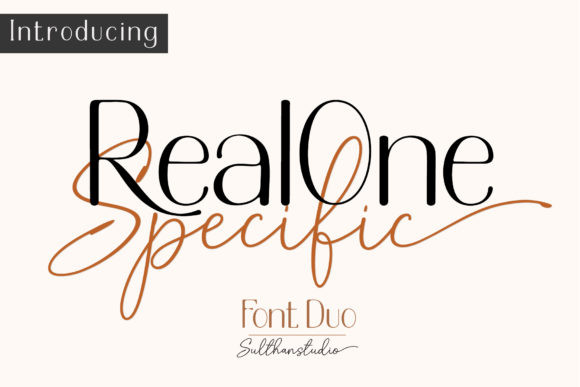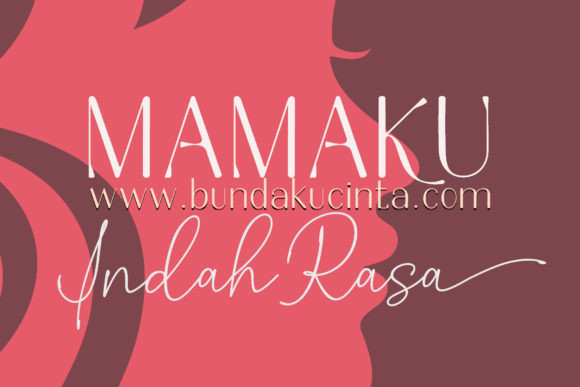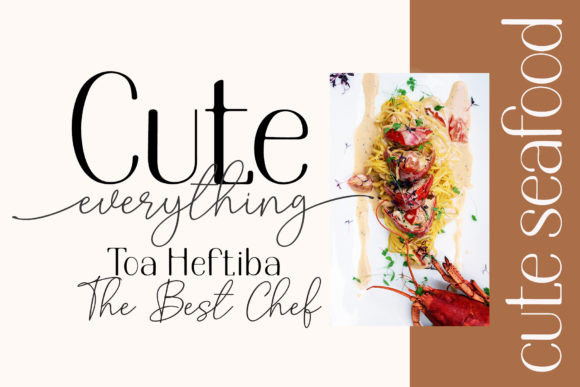
Real One Specific Font
Real One Specific is a spectacular duo font (sans serif and script). Incredibly versatile, this font fits a wide pool of designs, elevating them to the highest levels. Add this font to your favorite creative ideas and notice how it makes them come alive!